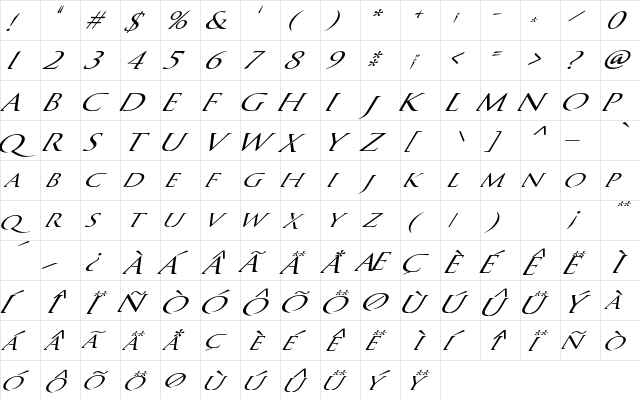
QuagentItalic Regular
| Foundry | Xerographer Fonts |
| Designer | Max Infeld Xerographer Fonts |
Design Context for QuagentItalic Typeface
QuagentItalic takes a measured approach to typography — its balanced proportions and neutral character make it a reliable workhorse for both digital and print work. Its italic angle brings a sense of urgency and motion to the letterforms.
Pro Tip: Use QuagentItalic for emphasis, pull quotes, and subheadings where its slanted energy can add rhythm to the layout.